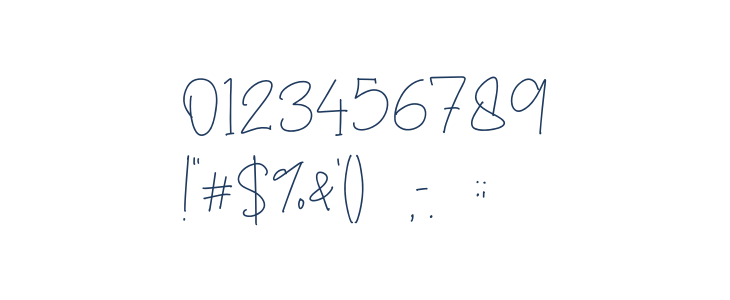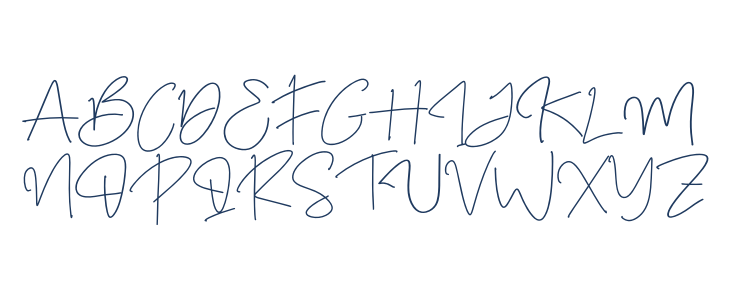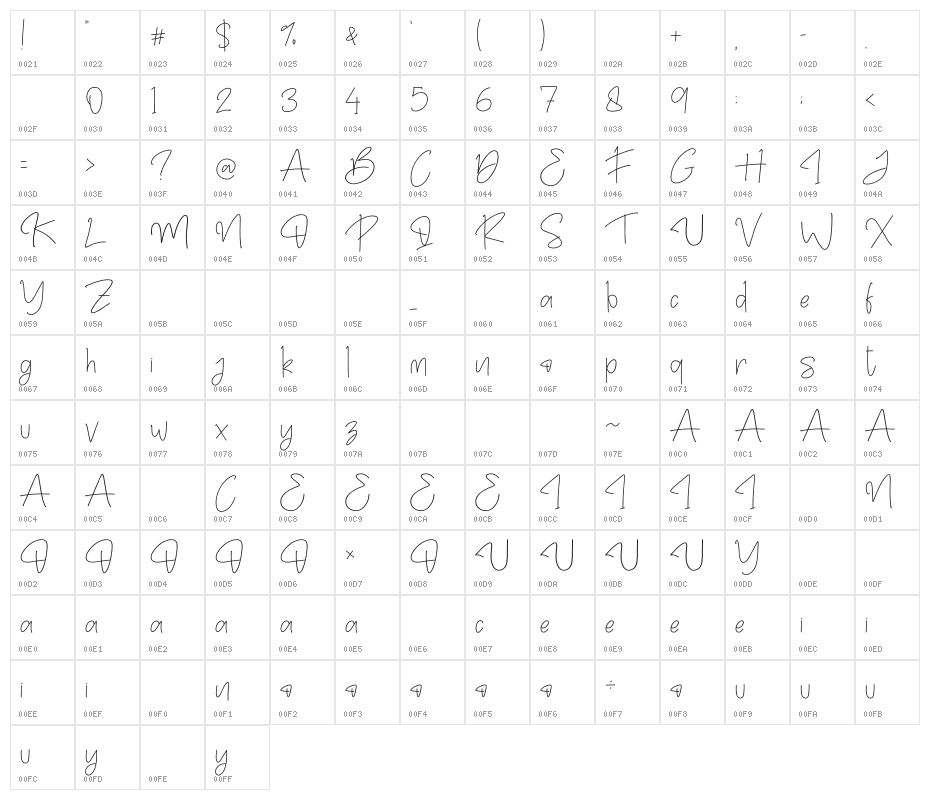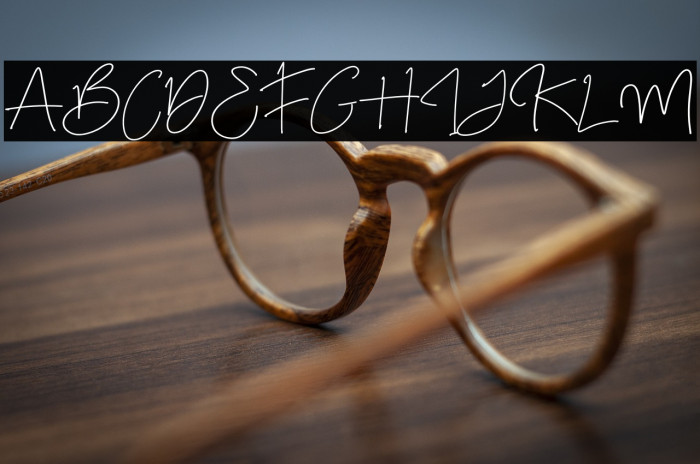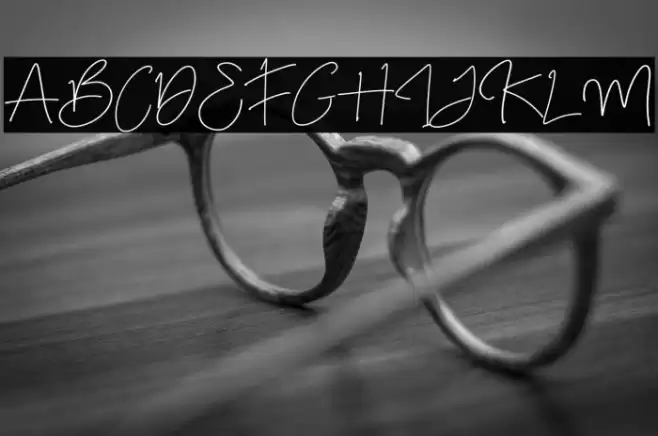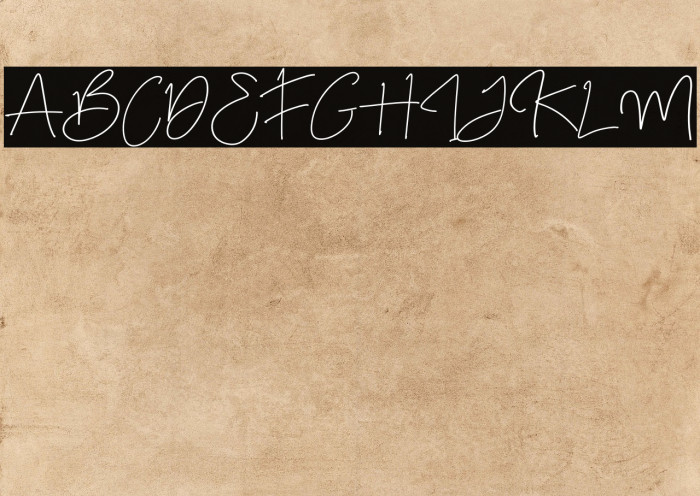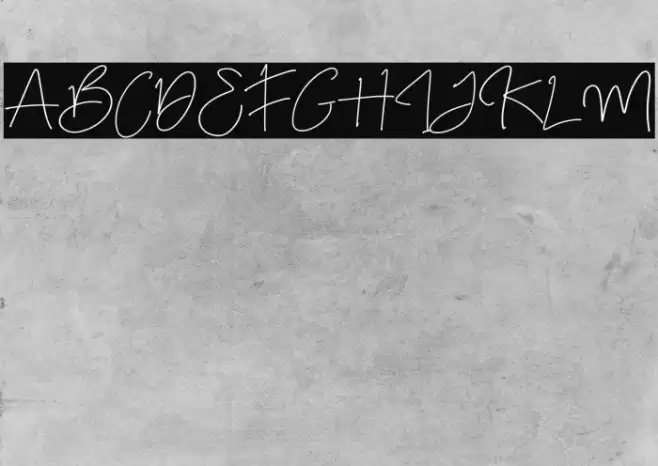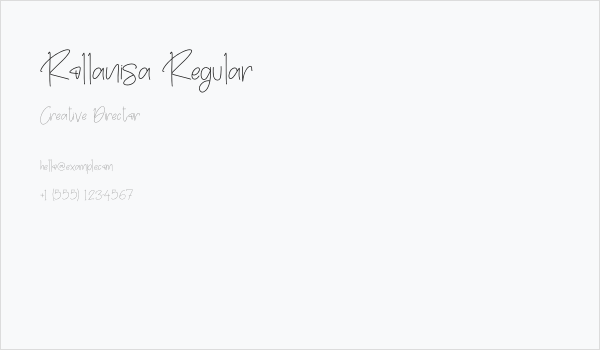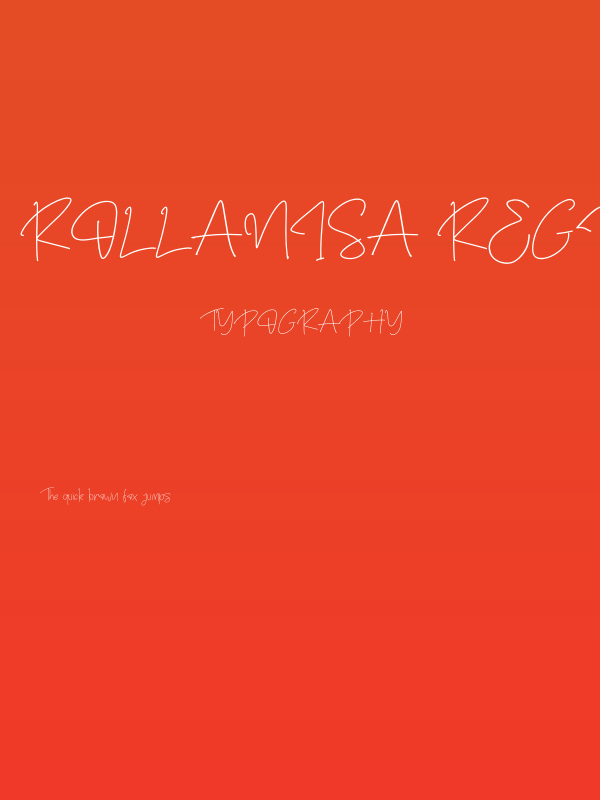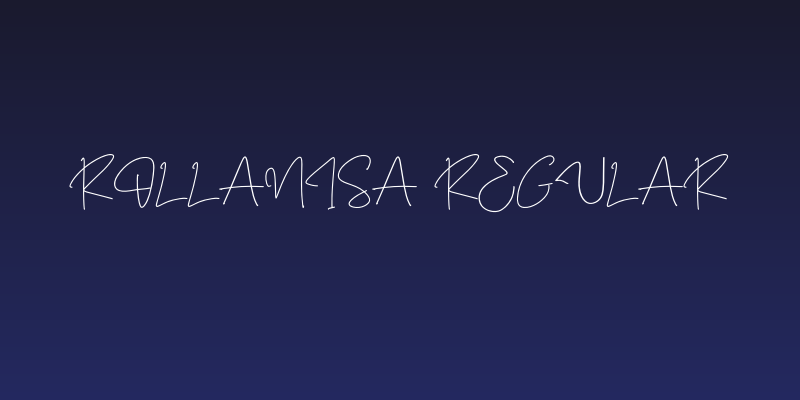
Rollanisa Regular Font
Rollanisa Regular Description
A handwritten, cursive style font with a casual, playful appearance, featuring thin, flowing lines and a slightly irregular stroke width.
| Overall Style | Casual, Playful, Handwritten |
| Use Case | Invitations, Greeting Cards, Personal Branding, Creative Projects |